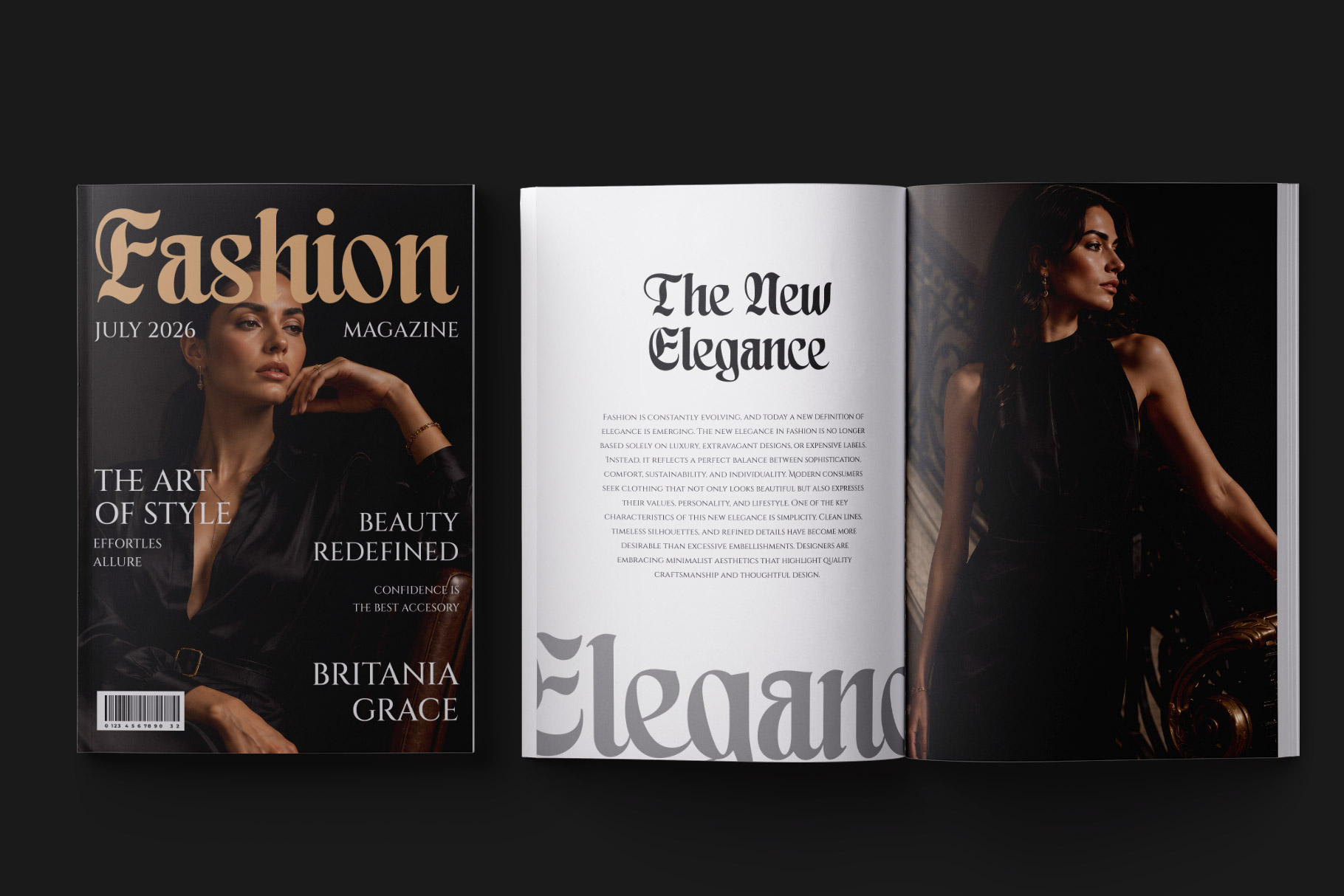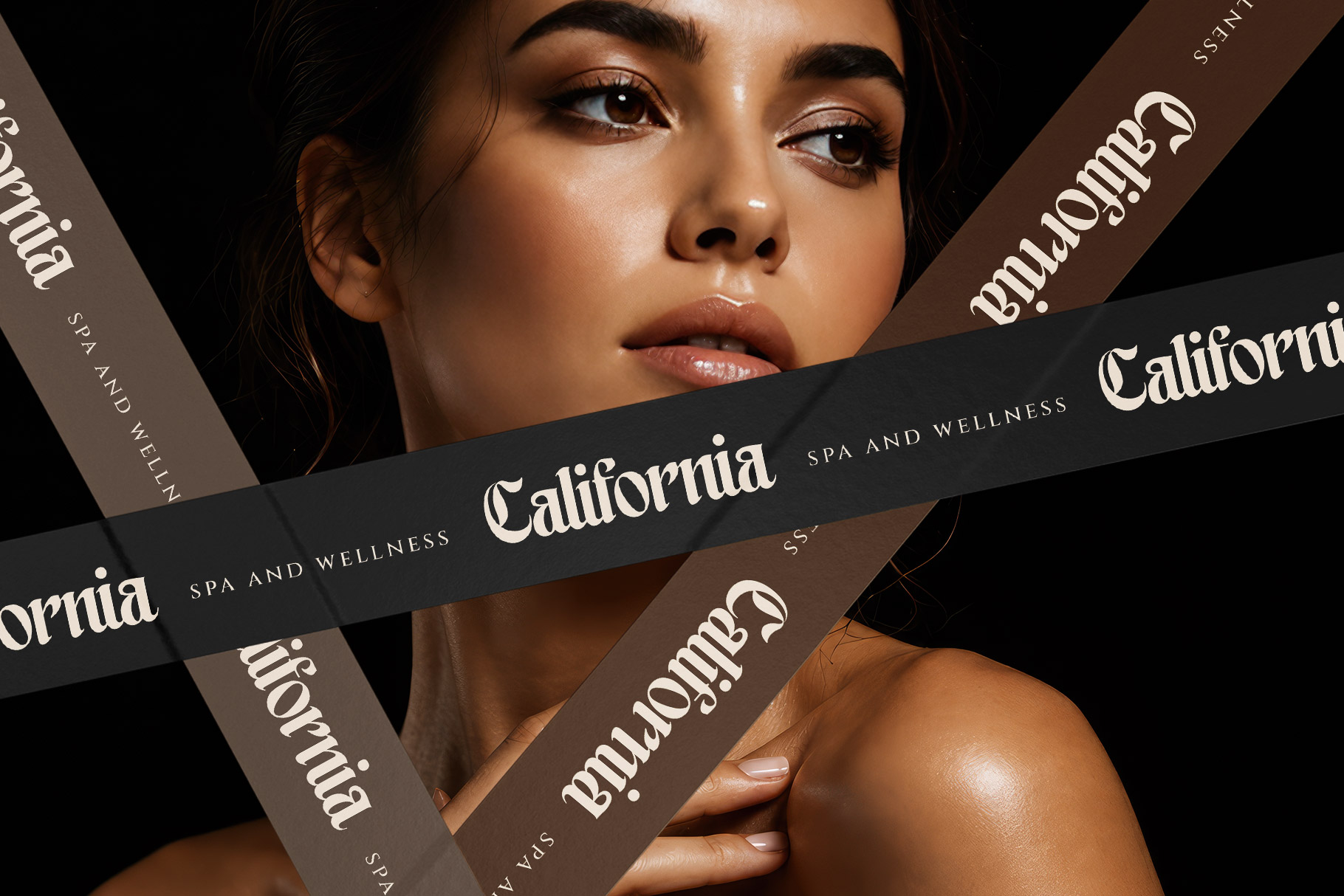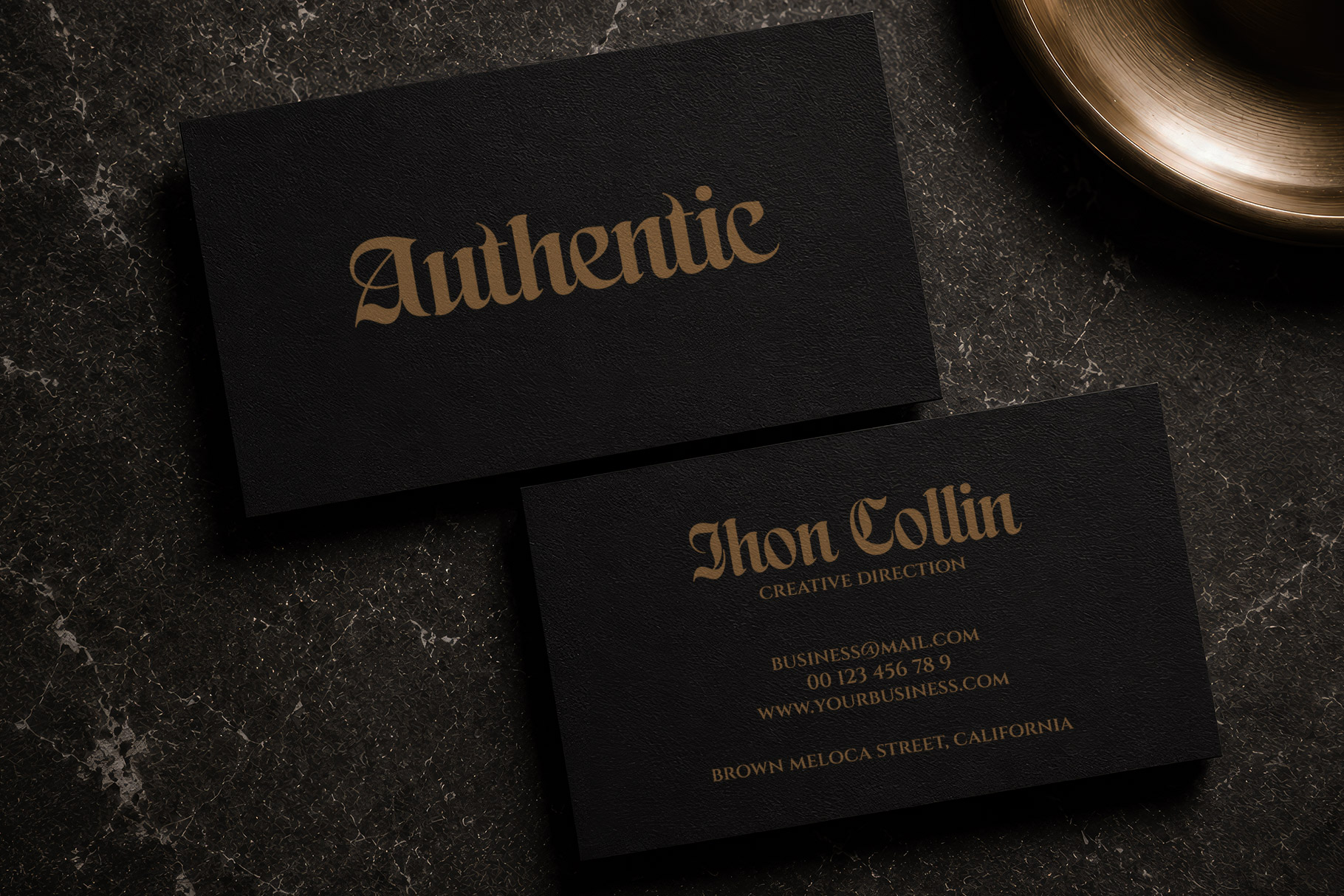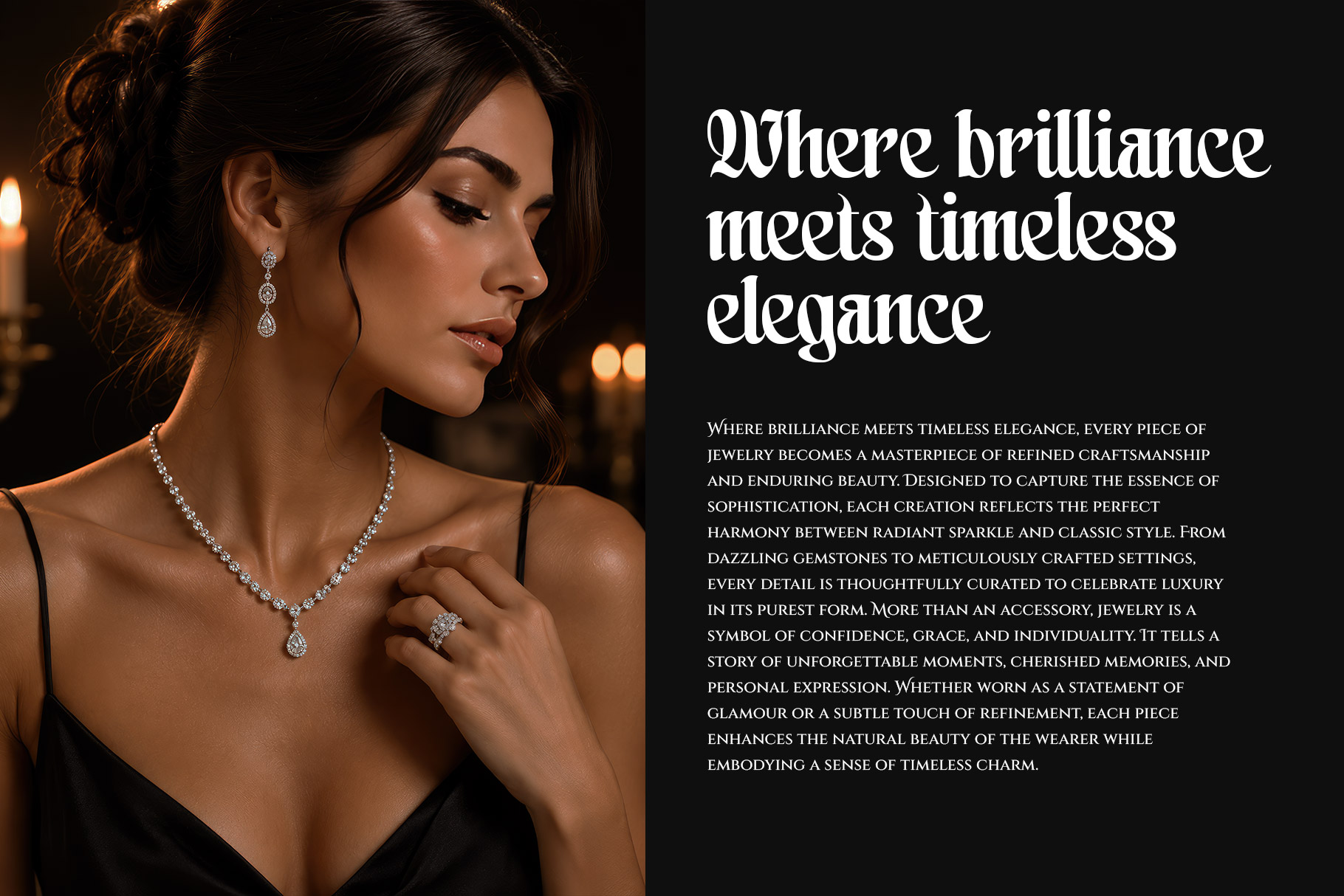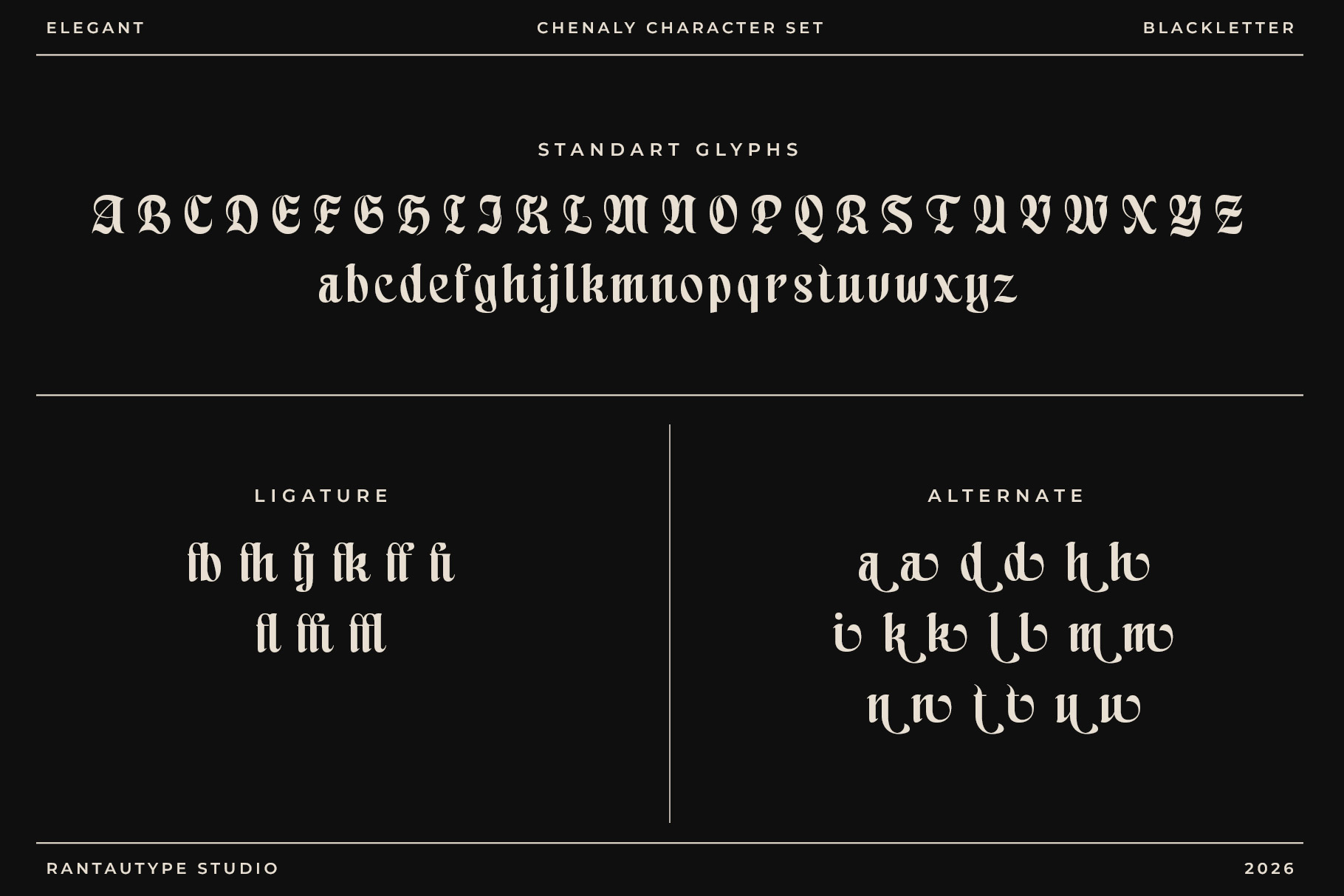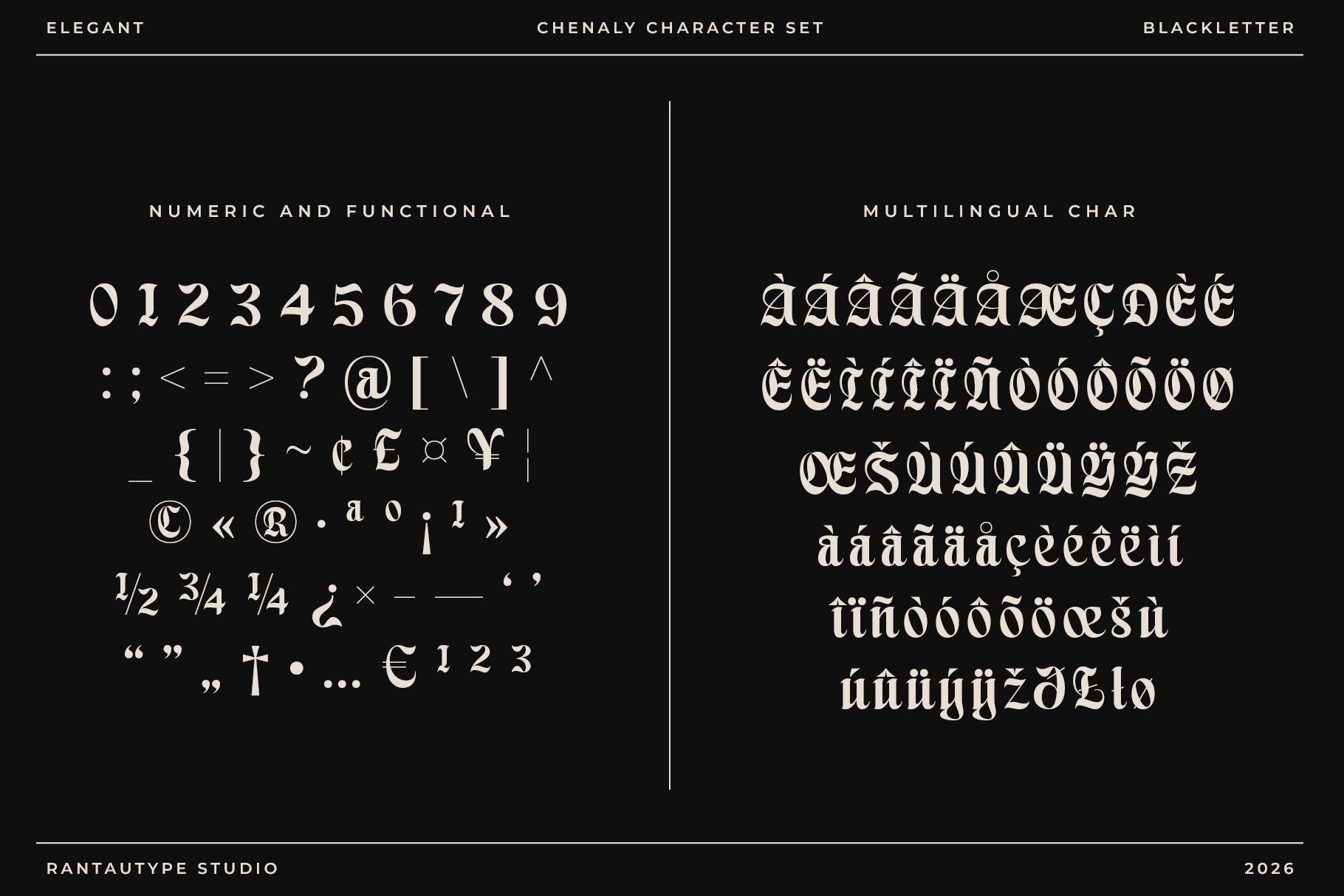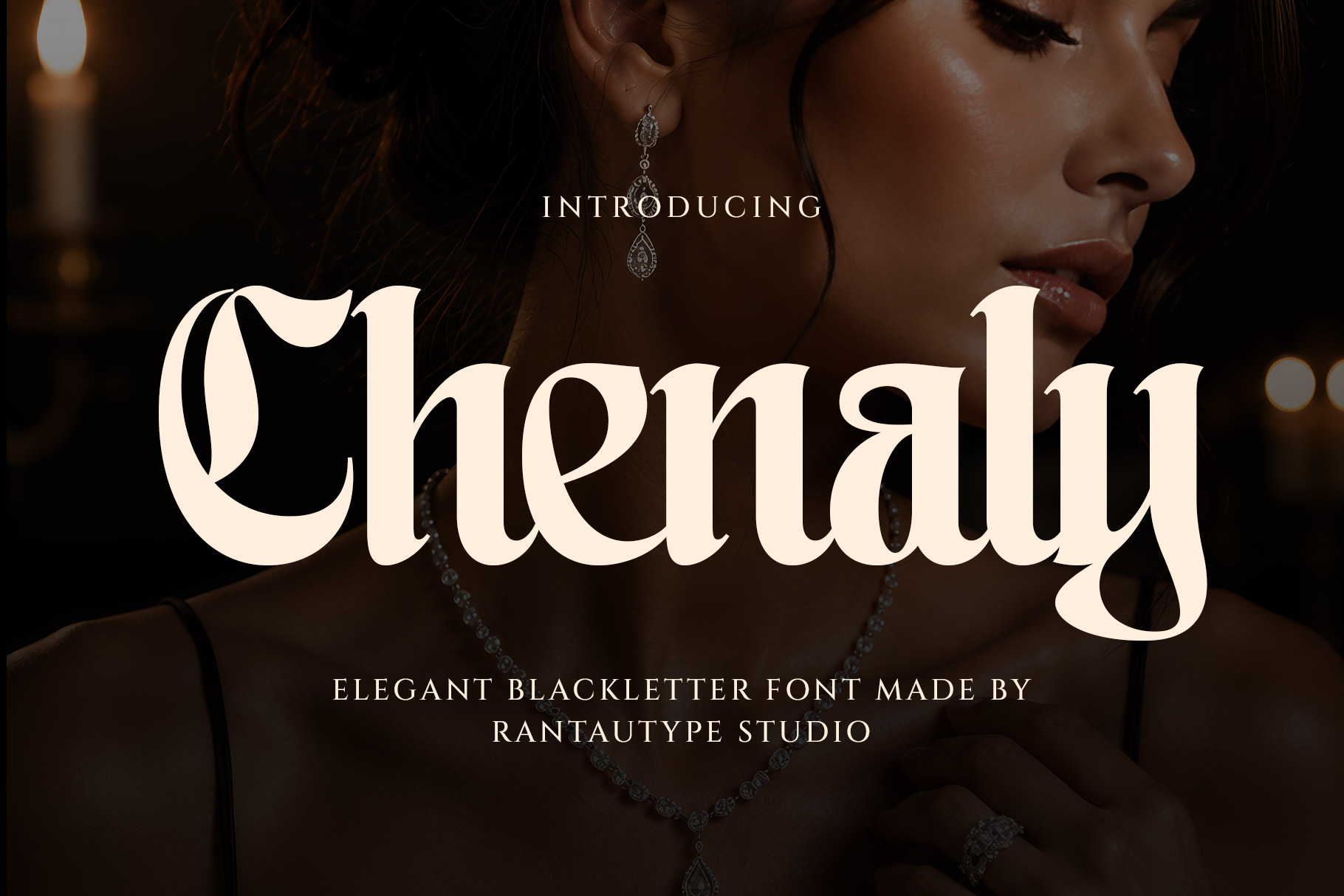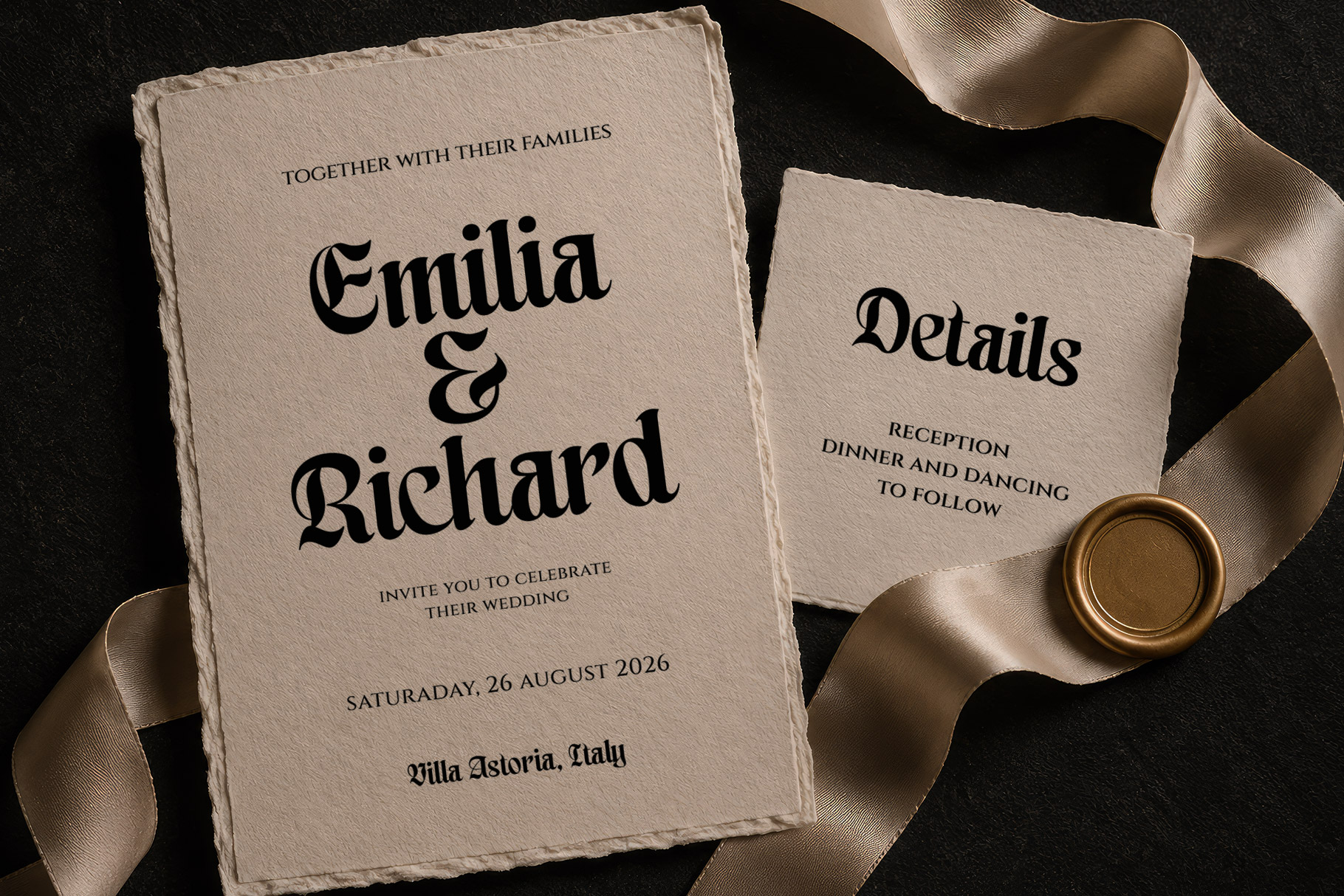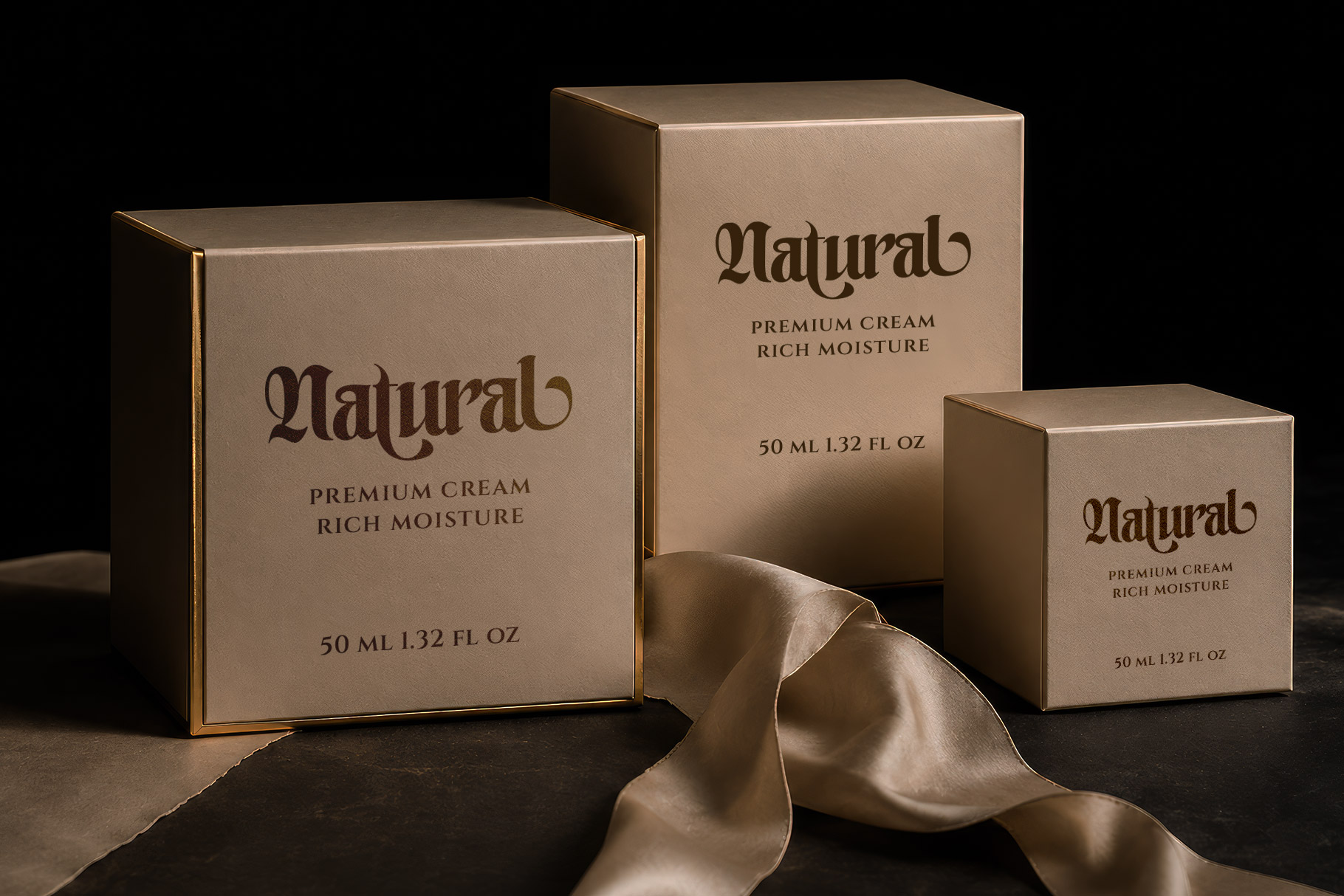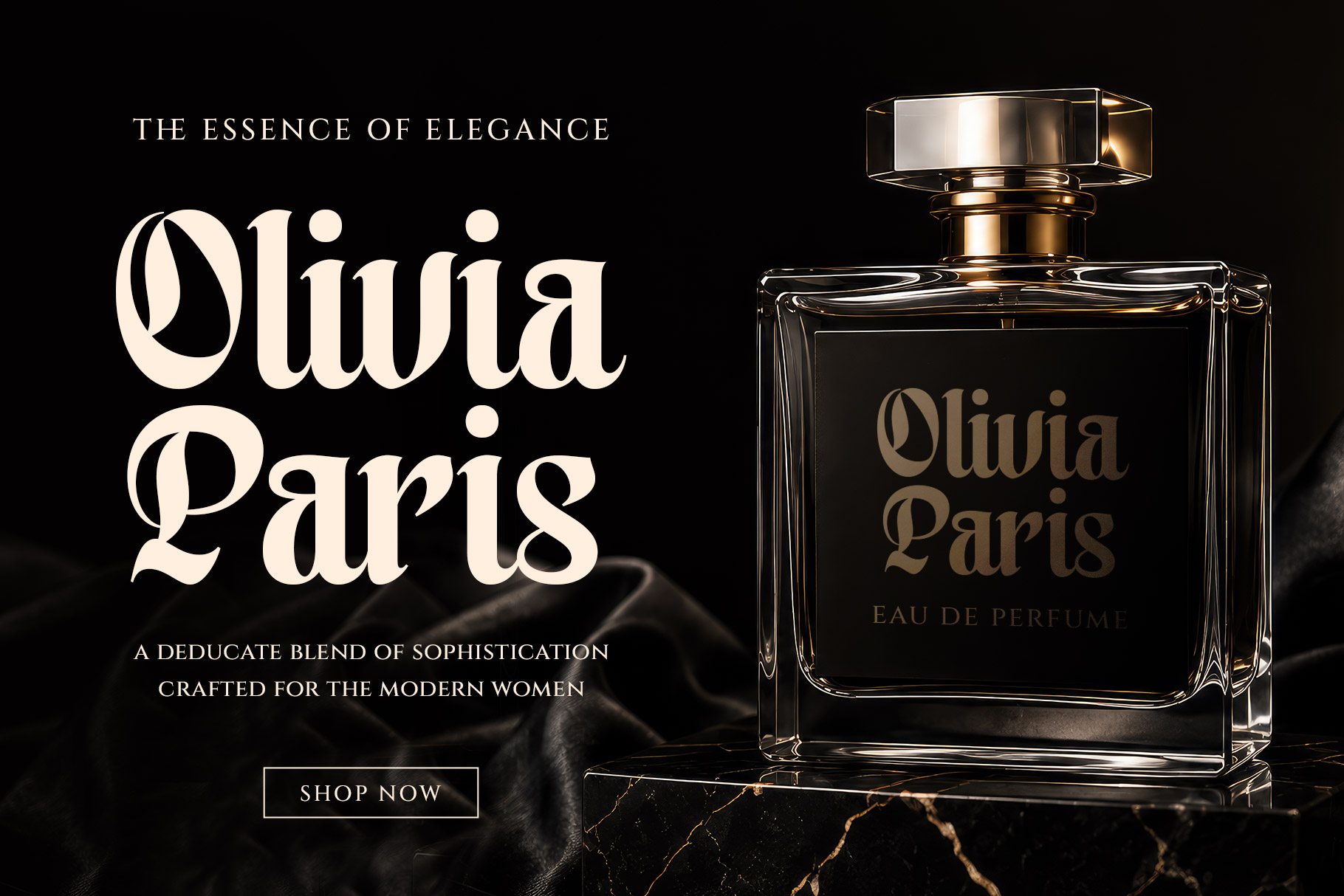
Chenaly is an elegant blackletter-inspired serif typeface that seamlessly blends classical craftsmanship with contemporary sophistication. While rooted in the expressive tradition of historic blackletter typography, this font softens its dramatic characteristics through graceful curves, balanced proportions, and refined letterforms, making it exceptionally versatile for modern luxury branding.
Chenaly a perfectly choice for any creative endeavor, creating, modern, lifestyle design such as logotype, title, cover, branding, invitations, wedding designs, display and magazine, social media posts, advertisements, printed quotes, product packaging, corporate brand, product designs, labels, photography, watermarks, special events and any other project with elegant touch.
Chenaly Elegant Blackletter Font